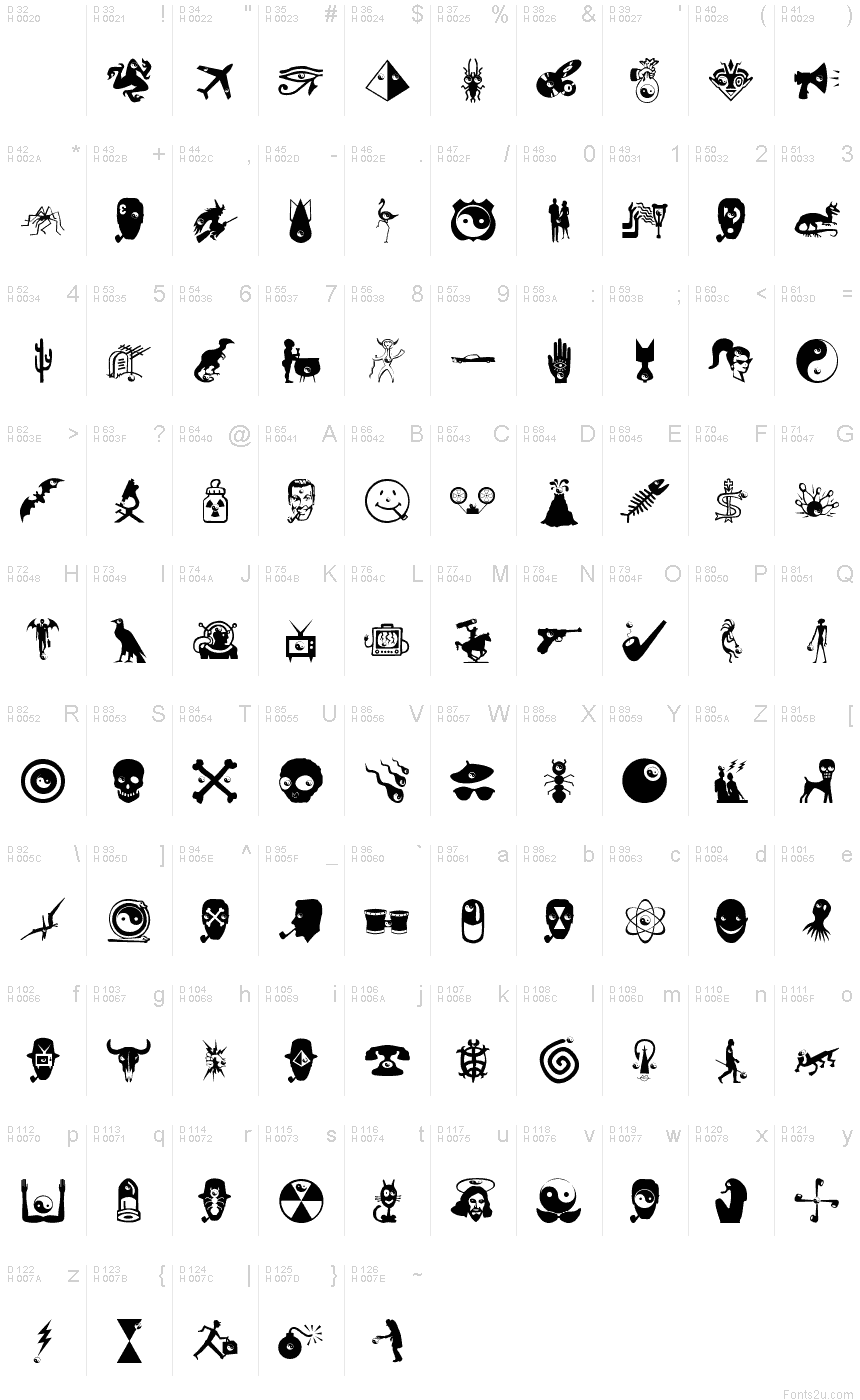
QuestionsOfBranding
Questions of Branding by M Klein of TheatroAbsurdo is a free alien cartoon dingbat font built from strange, solid silhouettes. The collection mixes humanoid creatures, tentacled forms, spindly limbs, and simple facial details with the blunt impact of cut-paper shapes.
Its absurdist science-fiction imagery makes a natural fit for underground gig posters and offbeat game graphics. The same oddball cast could populate album artwork or character-driven merchandise, functioning as a ready-made troupe rather than ordinary symbols. These uses share an appetite for unsettling humor and instantly recognizable creatures.